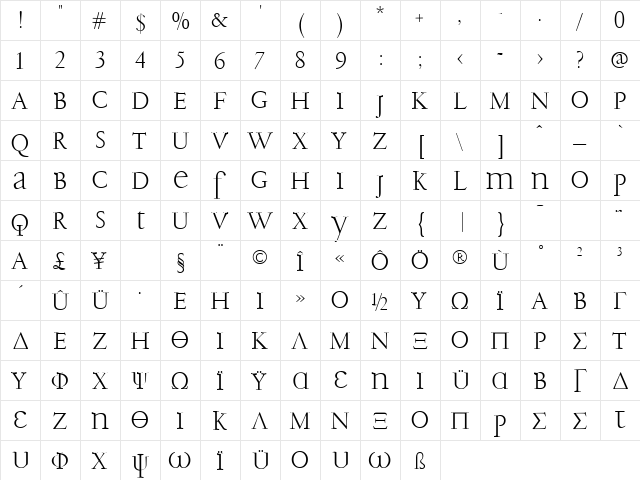
PFGaramond Classic Unicase Regular
Design Context for PFGaramond Classic Unicase Typeface
PFGaramond Classic Unicase has the warm character of retro typography — evoking diners, record sleeves, and the golden age of print advertising.
Font Pairing: Combine PFGaramond Classic Unicase with a simple slab or neutral sans — period-accurate companions reinforce the vintage feel without competing for attention.
Pro Tip: Lean into PFGaramond Classic Unicase's period character by pairing it with aged paper textures, muted colour palettes, and vintage illustration styles.